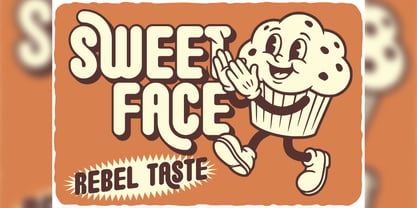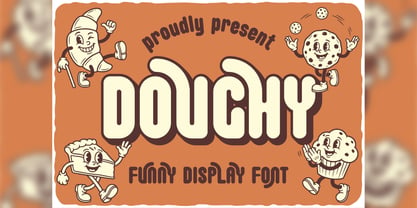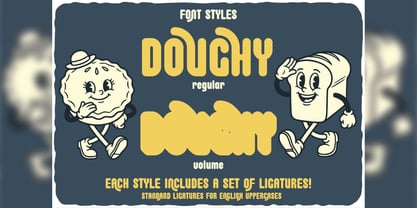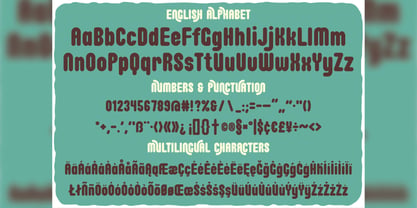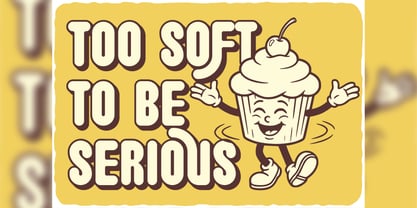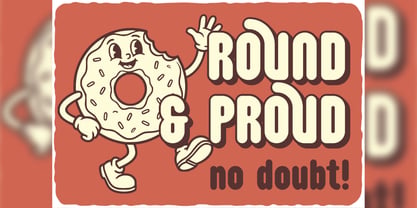
Doughy
por Vozzy
La familia tipográfica Doughy fue diseñada por Oleg Voznyy y publicada por Vozzy. Doughy contiene 2 estilos y opciones de paquete familiar. Más información sobre esta familia
Introducing the unique font "Doughy," perfect for headlines, accent inscriptions, and capturing attention! This versatile typeface features a wide array of additional characters, punctuation marks, and multilingual options, along with numerous alternate characters—ensure your software supports these OpenType features for the best experience. "Doughy" will enhance your stunning designs, making them stand out beautifully in branding, web, and editorial applications.
Diseñadores: Oleg Voznyy
Fundición: Vozzy